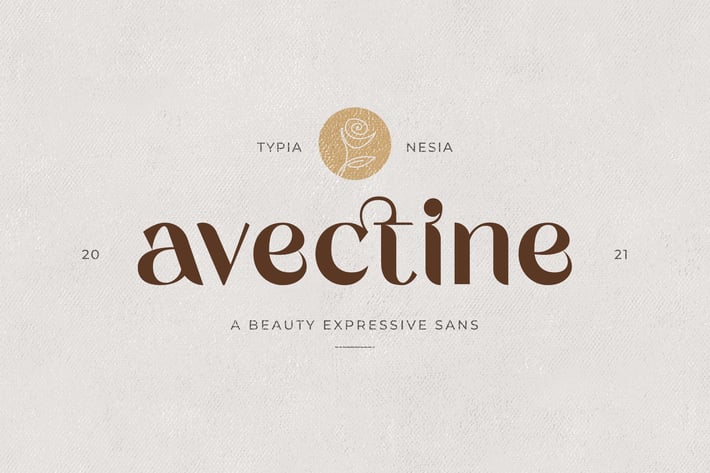
Avectine - Beauty Fancy Expressive Sans Serif Font
Avectine - Beauty Fancy Expressive Display Font - Contrast Sans Serif Font
Avectin comes with some ligatures, so you can combine it to make a perfect typography design. It is perfect for your up coming projects. Such as luxury logo and branding, classy editorial design, woman magazine, cosmetic brand, fashion promotional, art gallery branding, museum, historical of architectural, boutique branding, stationery design, blog design, modern advertising design, card invitation, art quote, home decor, book/cover title, special events and any more.